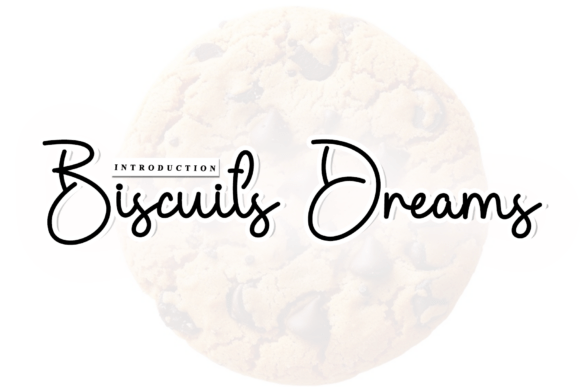
The Biscuits Dreams Font: A Timeless Choice for Creative Designs
Have you ever been in the middle of a design project, and suddenly, you’re stuck on finding the perfect font? I recall a recent experience where I was working on a branding project for a bakery, and I needed a font that would capture the warmth and coziness of their brand. After hours of searching, I stumbled upon the Biscuits Dreams font, and it was love at first sight! In this article, we’ll dive into the world of Biscuits Dreams, a lovely and timeless handwritten font that’s perfect for creating eye-catching logos, branding, and quotes.
A Personal Review: What I Love About Biscuits Dreams
So, what makes Biscuits Dreams so special? Here are a few things that I absolutely love about this font:
• ✨ Unique and beautiful touch: Every letter has a distinct character that adds a personal touch to your designs.
• ✅ Handwritten feel: The font has a warm, organic feel that’s perfect for creating a cozy and inviting atmosphere.
• 💫 Versatile: Biscuits Dreams is suitable for a wide range of design projects, from logos and branding to quotes and social media graphics.
While Biscuits Dreams is an amazing font, there are a few quirks to be aware of:
• 🤔 Limited kerning options: Some users might find the kerning options a bit limited, which can affect the overall spacing of the text.
• ⚠️ Not suitable for body text: Due to its handwritten nature, Biscuits Dreams might not be the best choice for long blocks of body text.
While the actual designer of Biscuits Dreams is unknown, it’s clear that they were inspired by the world of handwritten typography. The font’s unique and beautiful touch is reminiscent of traditional handwriting, with each letter carefully crafted to create a sense of warmth and personality.
What is Biscuits Dreams font best used for? Biscuits Dreams is perfect for creating eye-catching logos, branding, and quotes.
Is Biscuits Dreams a script font? Yes, Biscuits Dreams is a handwritten script font with a unique and beautiful touch.
In conclusion, Biscuits Dreams is a timeless and lovely font that’s perfect for creative designs. Its unique and beautiful touch, combined with its versatility, make it a great choice for designers, crafters, and creative hobbyists. Whether you’re working on a branding project, creating social media graphics, or designing a logo, Biscuits Dreams is sure to bring your designs to life!